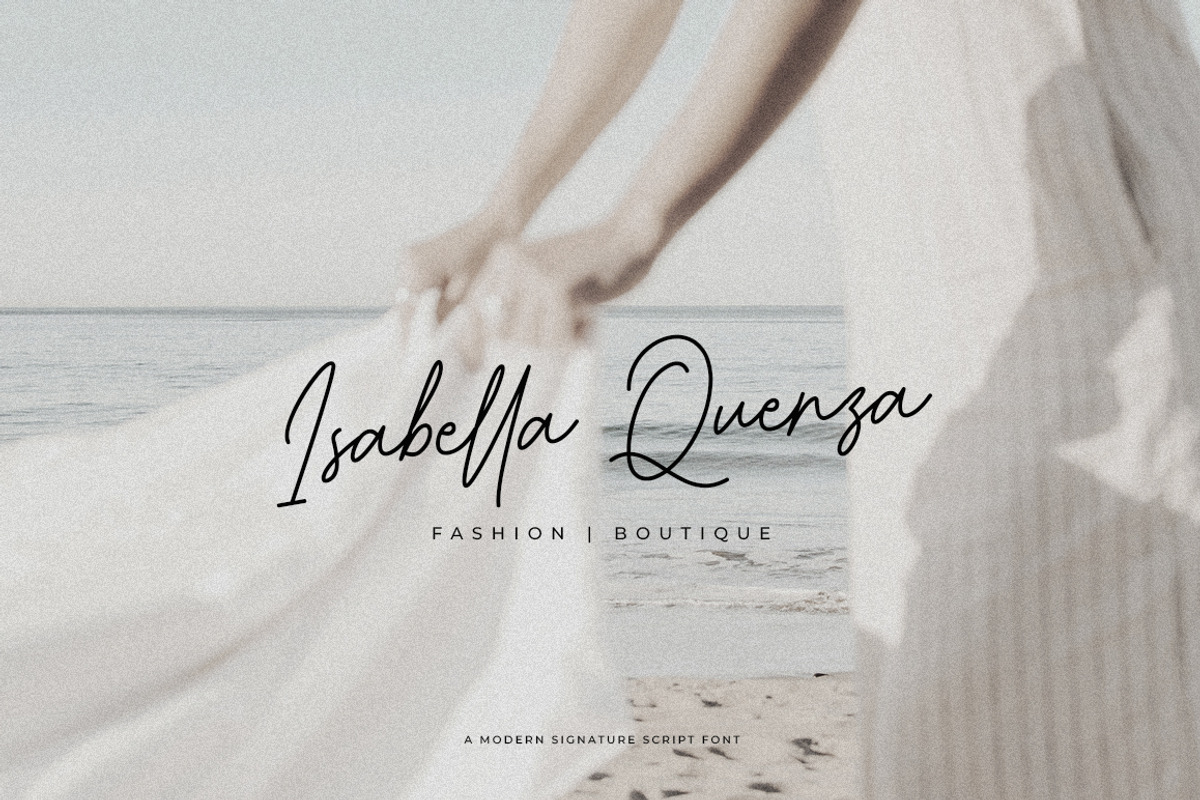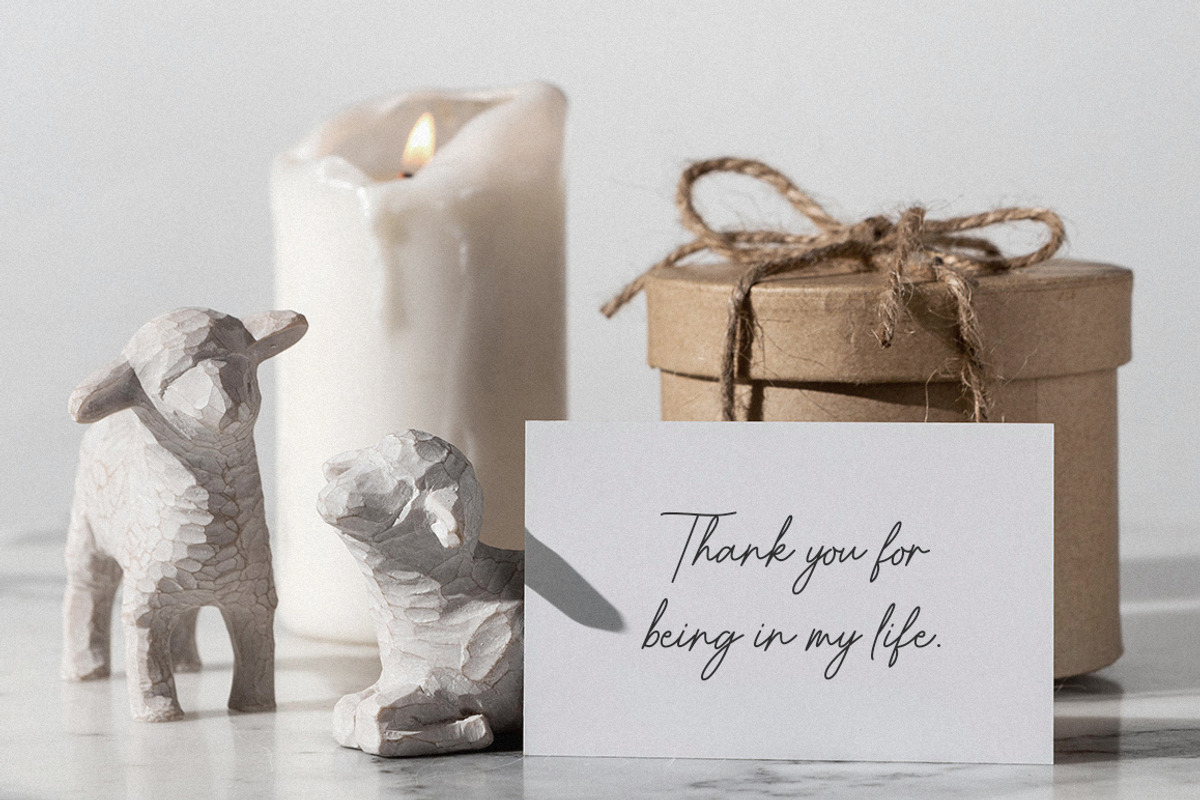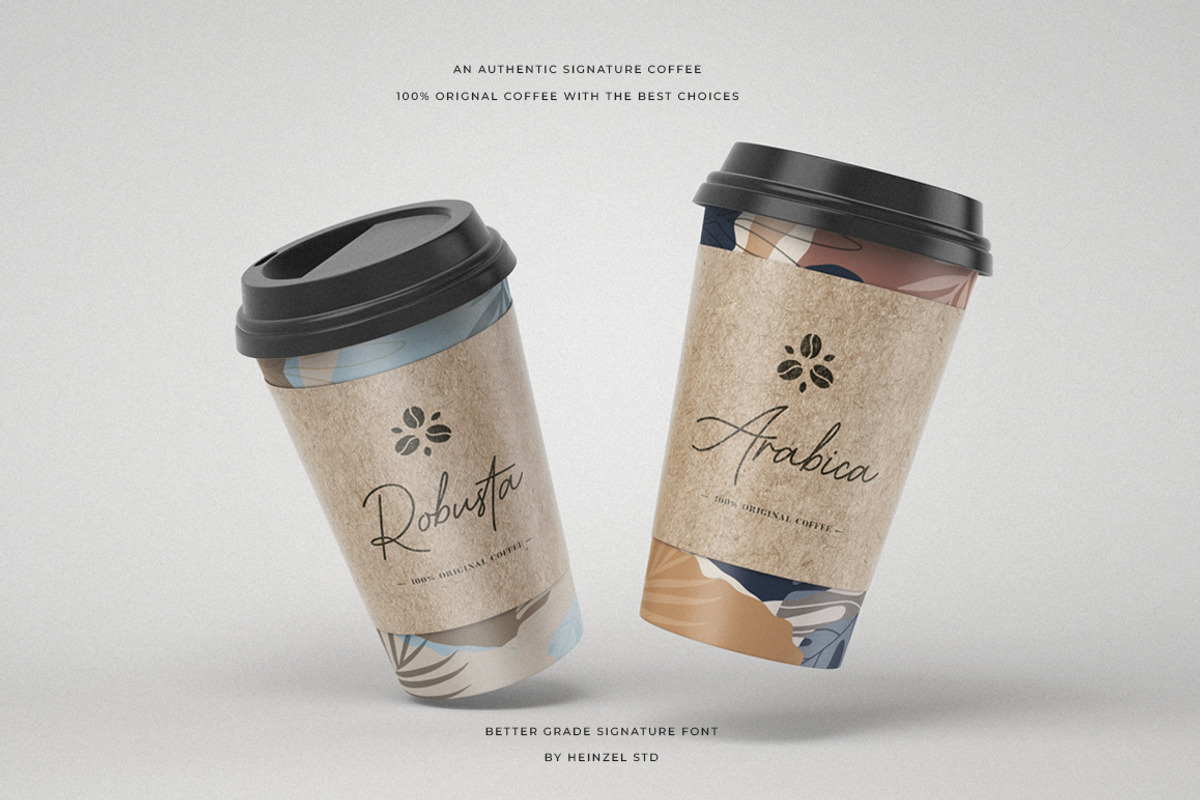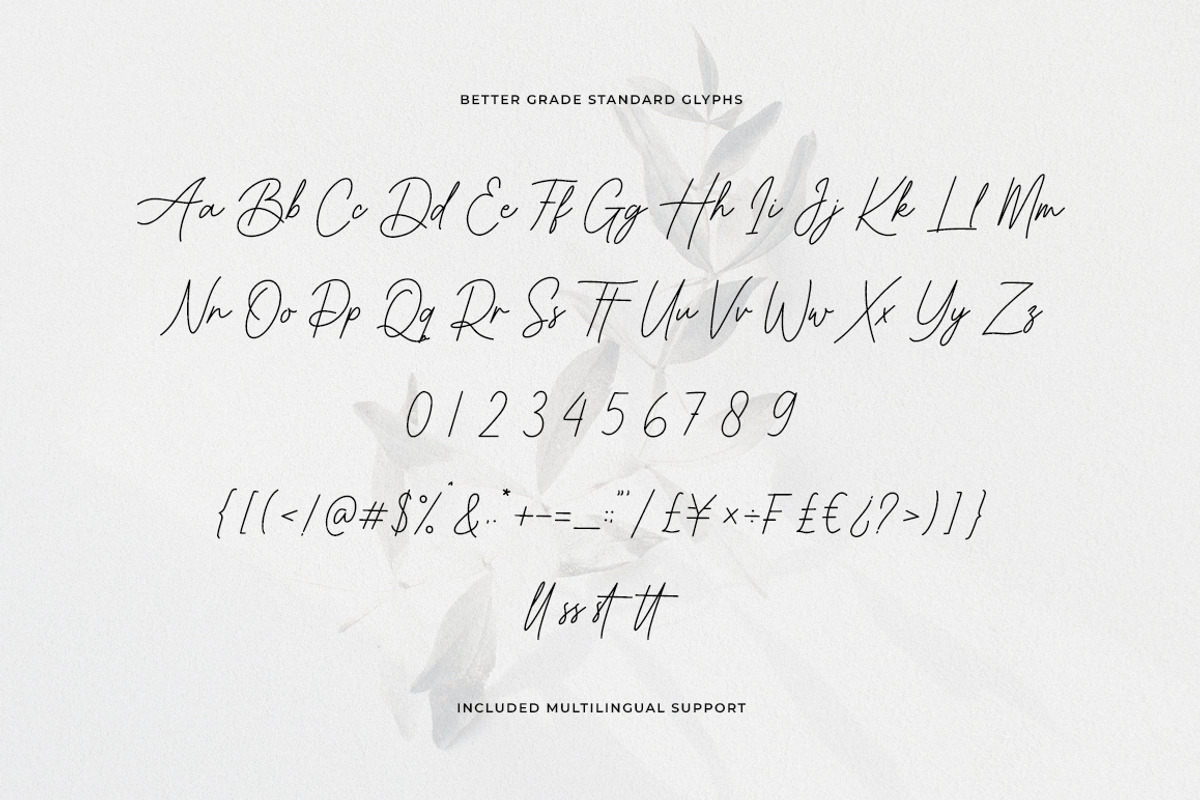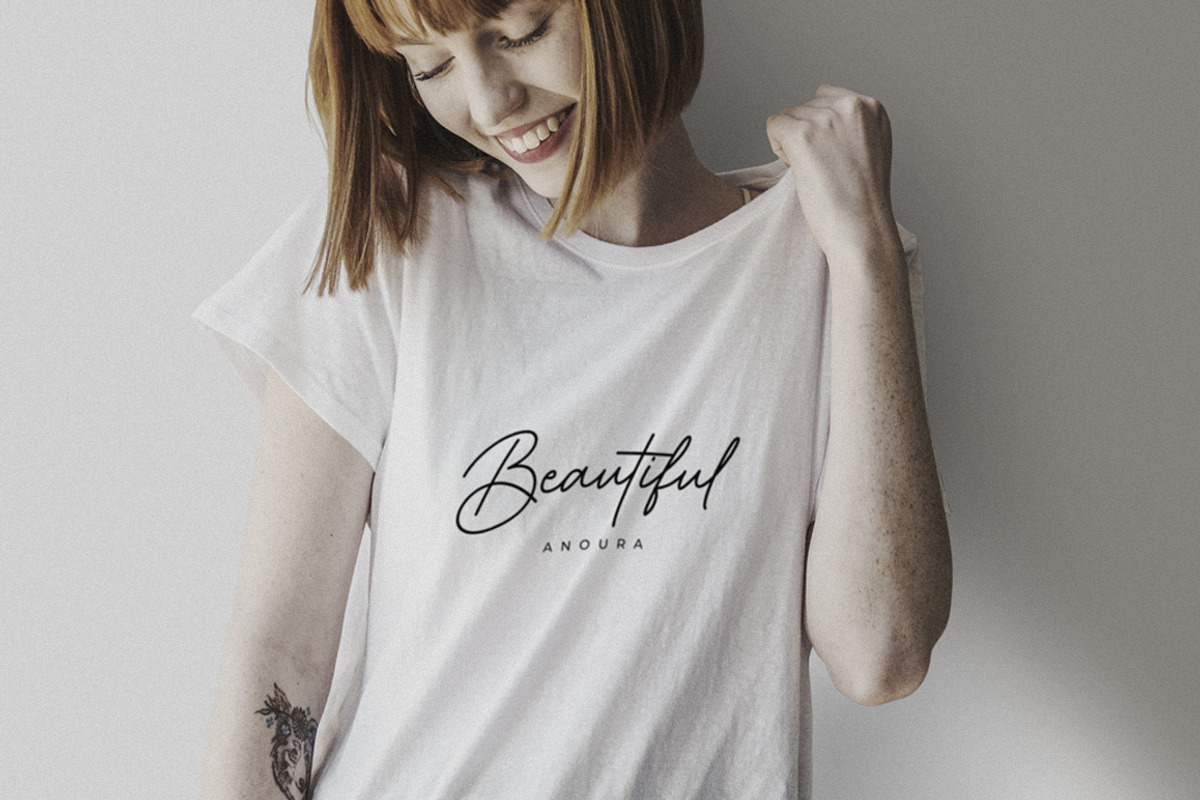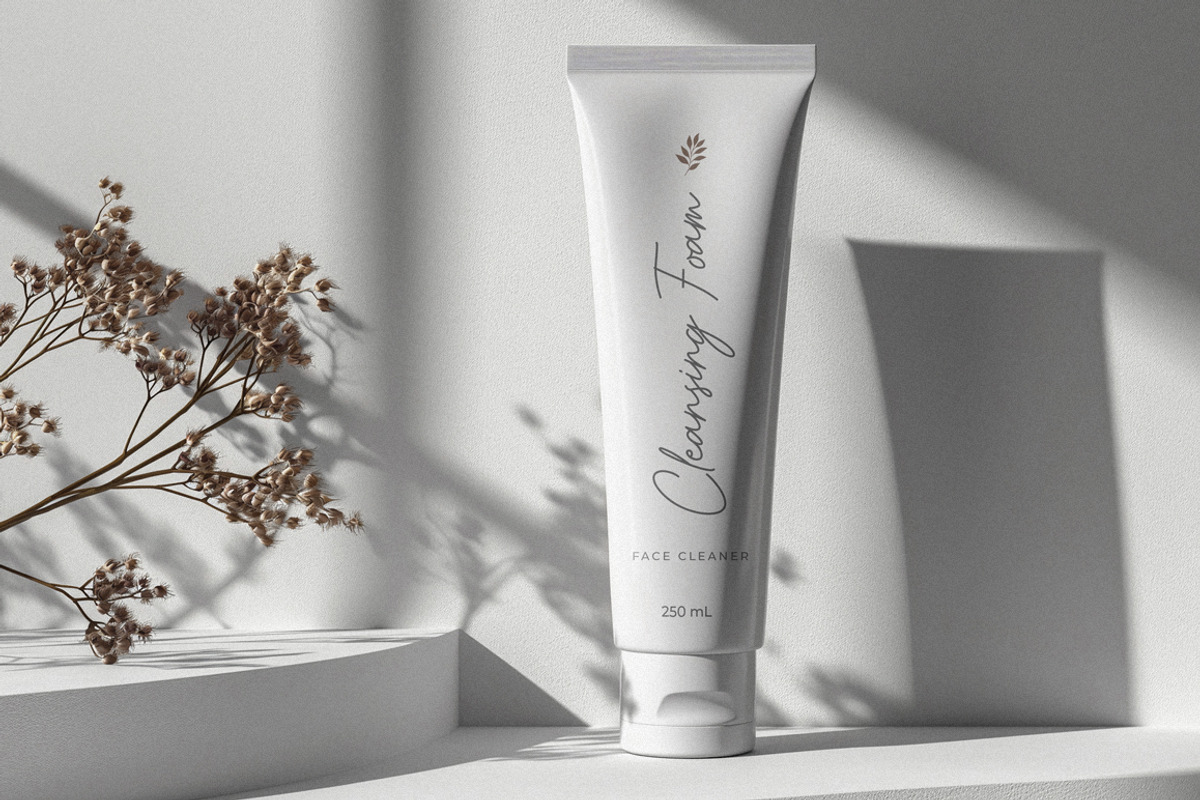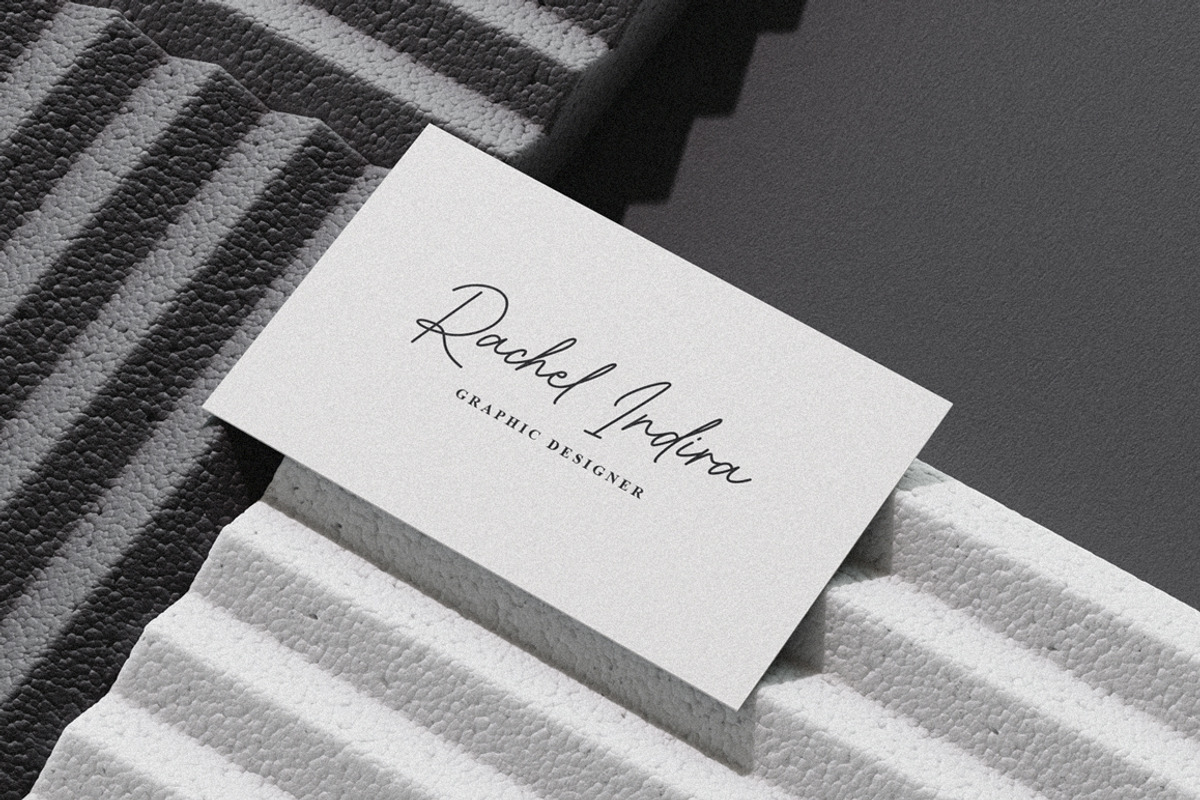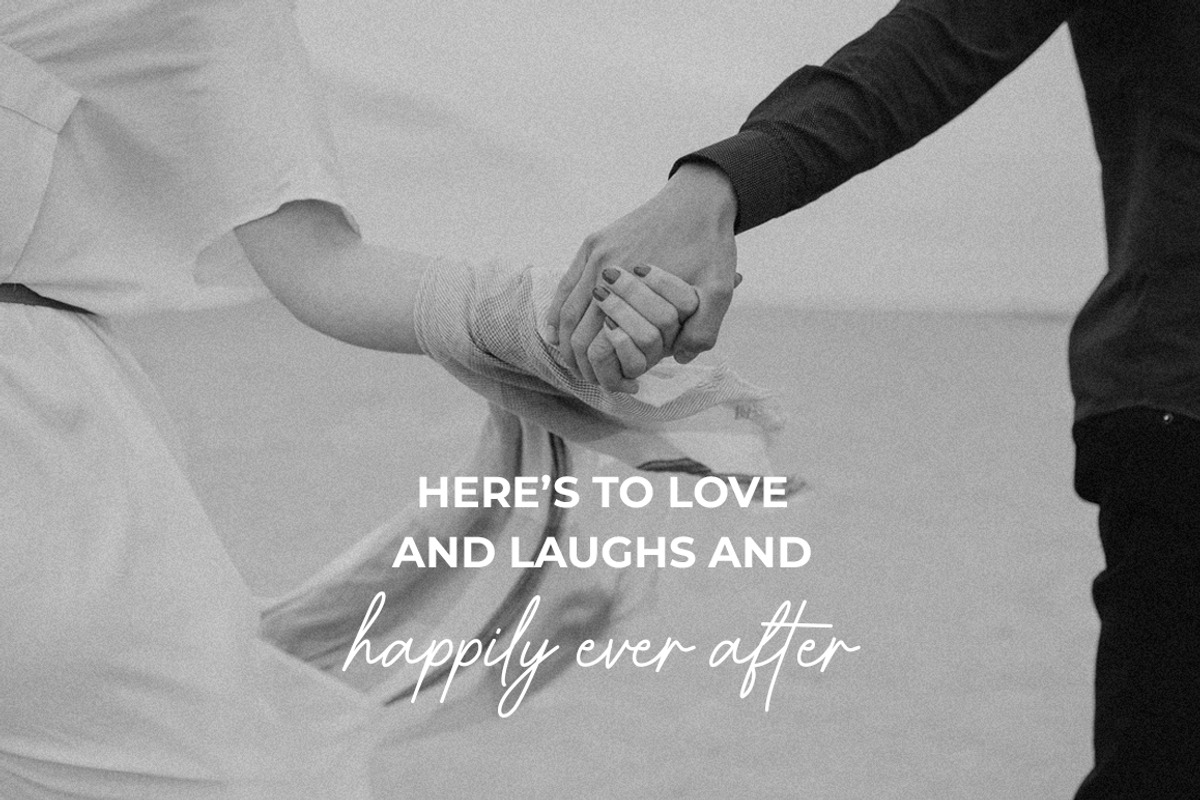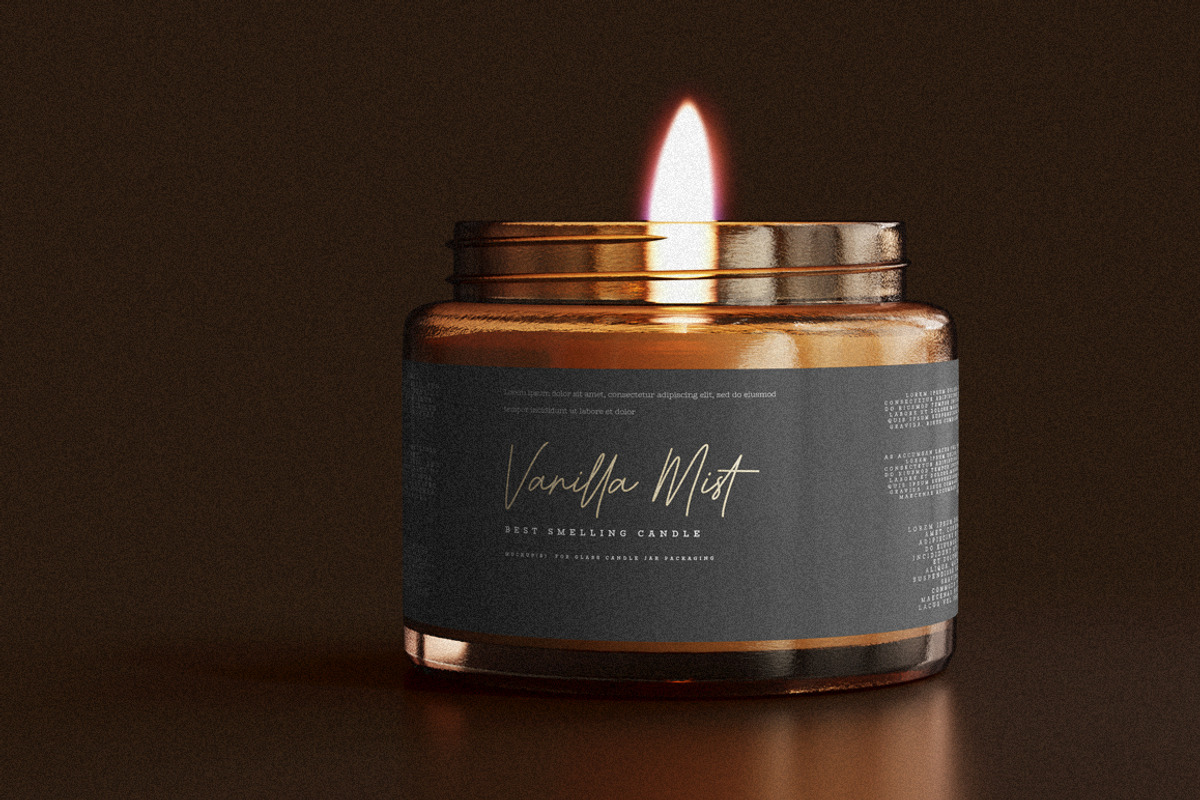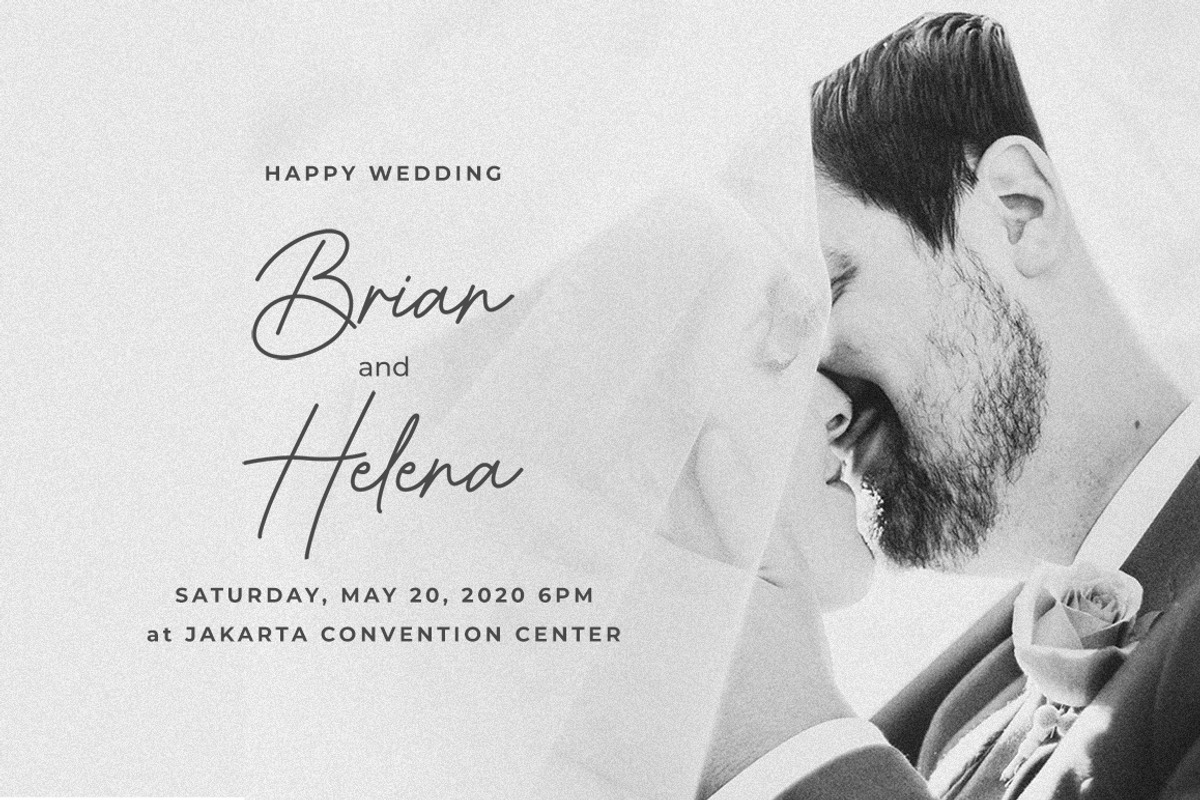
Better Grade Modern Signature Font
Better Grade – Modern Signature Font
Better Grade is a sophisticated modern signature font designed to bring elegance, authenticity, and luxury to every creative project. Featuring smooth handwritten strokes, natural signature-style curves, and beautifully crafted ligatures, Better Grade delivers a stylish and professional appearance that feels both personal and refined.
This modern script font is perfect for branding, logos, wedding invitations, fashion editorials, social media graphics, product packaging, photography watermarks, business cards, and premium marketing materials. Its flowing letterforms create a realistic handwritten effect, making designs feel exclusive and memorable.
Better Grade Features:
Numerical and Punctuation
Multilingual Language
This character set supports the following 21 languages: Afrikaans, Basque, Breton, Catalan, Danish, Dutch, English, Finnish, French, Gaelic (Irish, Scots), German, Icelandic, Indonesian, Irish, Italian, Norwegian, Portuguese, Saami (Southern), Spanish, Swahili, Swedish.